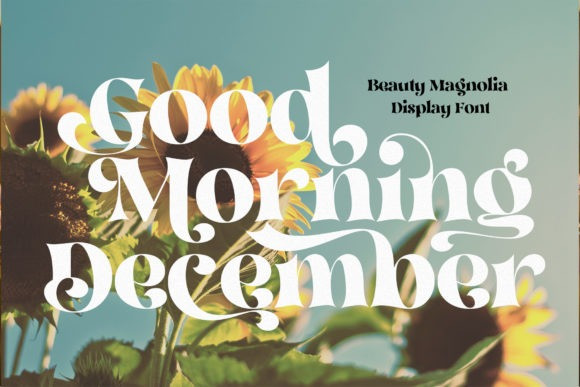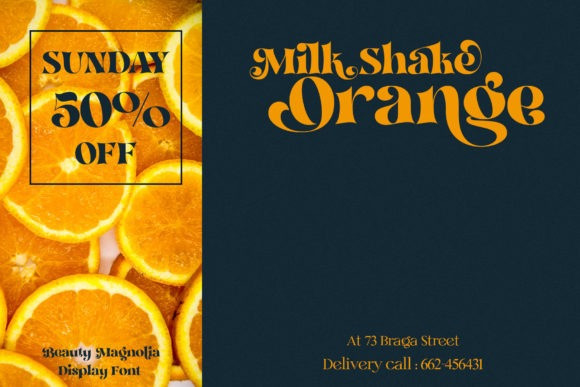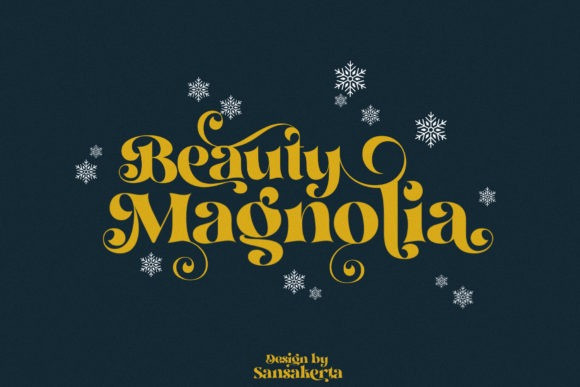
Beauty Magnolia Font
Beauty Magnolia Font is a bold, playful and thick lettered display font. Elegant and versatile, this font will brighten up each of your formal and informal designs.